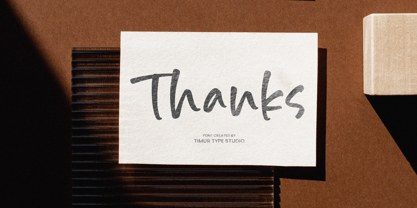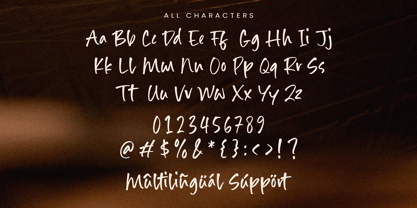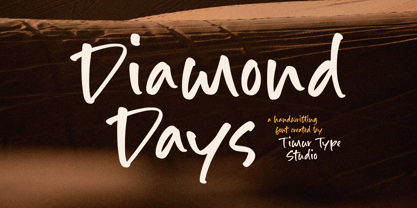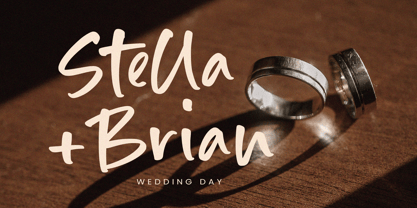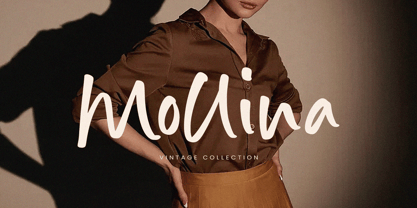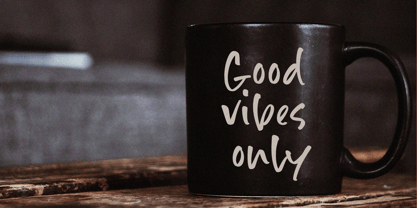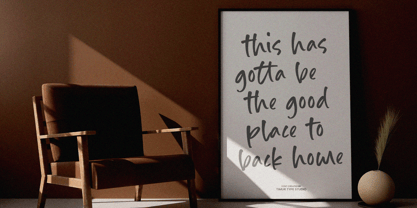
Diamond Days
The Diamond Days Font Family was designed by Wara Sigit Tri Pamungkas and published by Timurtype. Diamond Days contains 1 styles. More about this family
Diamond Days is a Handwriting Font
This font is a elegant handwritten script font characterized by its flowing, cursive strokes and refined aesthetic. It exudes a sense of sophistication and charm, making it ideal for wedding invitations, branding, logo designs, and other creative projects that require a stylish touch. The font’s smooth curves and natural handwriting style evoke a sense of warmth and individuality, perfect for adding a touch of elegance to any design.
Diamond Days Font also supports multilingualism